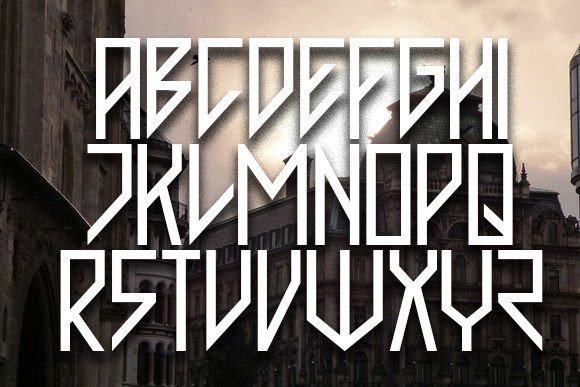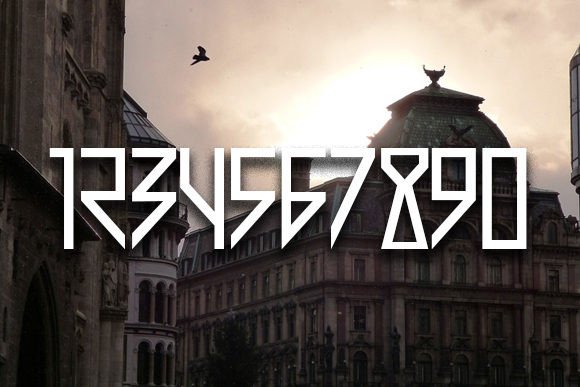
Introduction to Literally Font
Literally is modern gothic typeface that will fit on any o Your designs.
Use this font on brochures, posters and headlines .